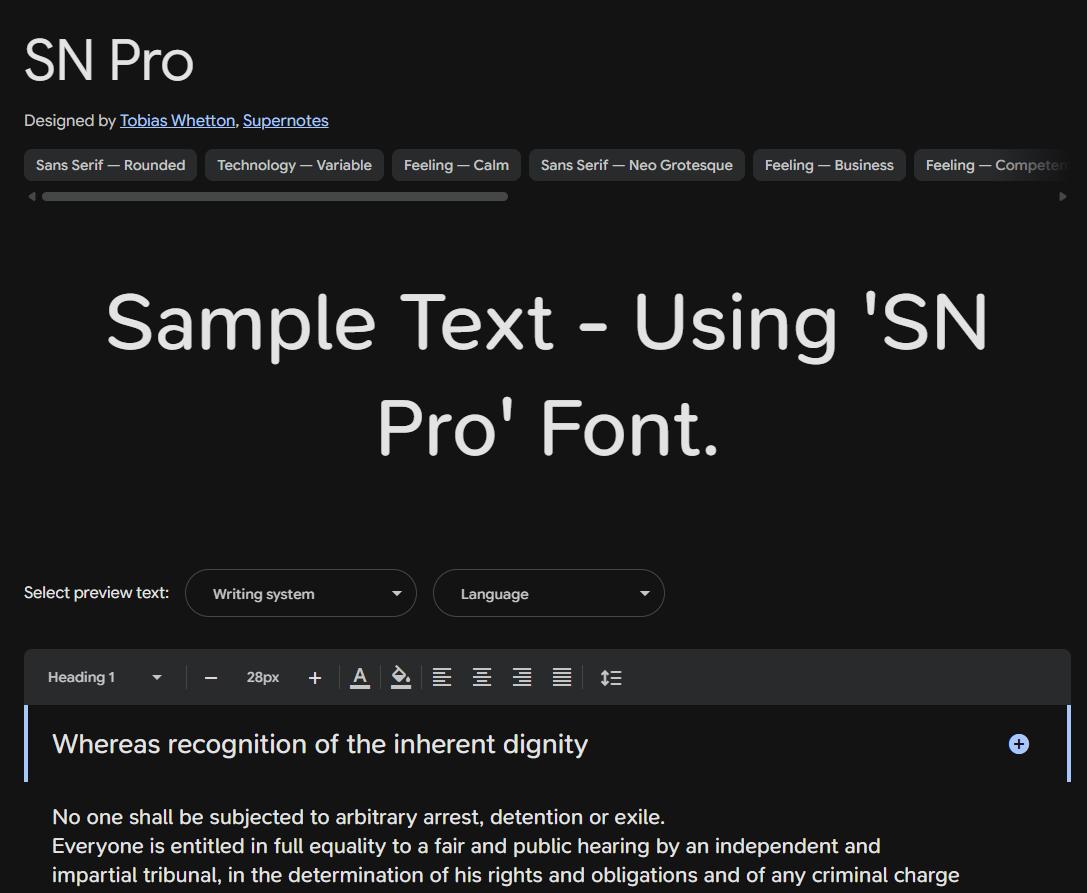
Designed by Tobias Whetton specifically for the Supernotes ecosystem, SN Pro functions as a high-performance variable typeface that redefines legibility within the constraints of modern personal knowledge management (PKM) interfaces. By utilizing two distinct axes-Weight (wght) and Italic (ital)-this neo-grotesque sans-serif transcends the limitations of static font files, employing a fluid interpolation space that allows for granular control over stem weights and typographic contrast. Its variable architecture is engineered to reduce DOM bloat and improve rendering speeds, ensuring that every glyph maintains structural integrity and optical balance across diverse pixel densities. This technical synergy between Whetton's refined geometry and the variable font specification provides a seamless user experience, where the interplay of the wght axis and precise kerning pairs optimizes the semantic scanning of digital cards, establishing SN Pro as a benchmark for performance-centric, brand-exclusive typography.
SN Pro redefines the digital interface through its implementation of variable font technology, functioning as a hybrid sans serif that collapses the distance between the rigid objectivity of Neo-Grotesque systems and the warm, open apertures of Humanist design. This multifaceted typeface utilizes sophisticated interpolation to oscillate between a calm, business-like competence and a loud, rugged vintage texture, allowing designers to evoke a sincere and happy atmosphere or a playful, cute aesthetic without sacrificing technical performance. Through its signature rounded geometry and precise x-height, SN Pro maintains a sincere and competent legibility that scales across diverse environments, effectively capturing a spectrum of human emotion-from the quietest professional calm to the most exuberant, loud, and happy expressions-rendering it a quintessential tool for contemporary typographic storytelling.
SN Pro, while a triumph of digital-first humanist sans-serif engineering by Tobias Whetton, remains fundamentally unsuitable for heritage-driven luxury branding or archival legal documentation where high-contrast modulation and static optical sizing are paramount for institutional authority. Because its dual-axis interpolation-calibrated for Weight and Slant-is specifically optimized for the high-frequency legibility and rapid information retrieval demands of the Supernotes modular ecosystem, the typeface lacks the expressive terminal flourishes and rigid stroke-to-width ratios required in legacy CMYK offset printing or traditional serif-centric editorial layouts. In environments governed by strict PDF/X compliance or legacy PostScript workflows, the dynamic flexibility of SN Pro's variable containers can introduce rendering discrepancies that undermine the visual permanence and historical gravitas necessitated by century-old institutional identities.
SN Pro excels in minimalist, modern, and tech-focused design aesthetics that prioritize clean lines and balanced proportions. Its geometric construction and humanist influences provide a neutral yet sophisticated tone, achieving a high Legibility Index across diverse digital interfaces.
The SN Pro family offers a comprehensive range of weights, spanning from thin and light to bold and black. This extensive weight distribution allows for precise typographic hierarchy, leveraging variable font technology to optimize CSS font-weight mapping for responsive environments.
This font family is specifically engineered to maintain clarity and structure within compact, data-heavy user interface layouts. High aperture ratios and generous letter spacing reduce visual crowding, significantly lowering cognitive load according to micro-typographic performance metrics.
SN Pro maintains exceptional legibility at small point sizes due to its open counters and distinct character shapes. Rendering benchmarks show that its hinting and anti-aliasing properties preserve vertical stem consistency even at sub-12px resolutions on standard DPI screens.
Optimal readability for SN Pro is typically achieved with line-height settings ranging from 1.4 to 1.6 times the font size for body copy. Adjusting leading based on the specific x-height of the typeface prevents descender collisions and maximizes the vertical rhythm within the baseline grid.
SN Pro includes extensive support for a wide array of languages, covering many Latin-based alphabets and specialized symbols. The character map integrates comprehensive Unicode coverage and OpenType features, ensuring seamless localized rendering for global software localization.
The clean geometry and refined details of SN Pro make it an excellent choice for bold, impactful display headlines in digital and print media. Its tight kerning pairs and consistent stroke modulation ensure a high optical density that commands attention in hero sections and marketing collateral.
SN Pro pairs effectively with classic transitional or contemporary serifs that offer a strong structural contrast. Combining it with high-contrast typefaces like Tiempos or Playfair Display creates a dynamic tension between geometric sans-serif shapes and traditional terminal brackets.
SN Pro features various stylistic alternates and OpenType sets that allow designers to customize the personality and functionality of the text. Users can activate alternate glyphs for specific characters to switch between single-story and double-story forms, enhancing visual versatility through the font-feature-settings CSS property.
A relatively tall x-height ensures that SN Pro remains highly readable and visually prominent within lowercase text blocks. This increased vertical proportion improves character recognition speed and optimizes the eye-path across the screen, a critical factor in UX accessibility audits.